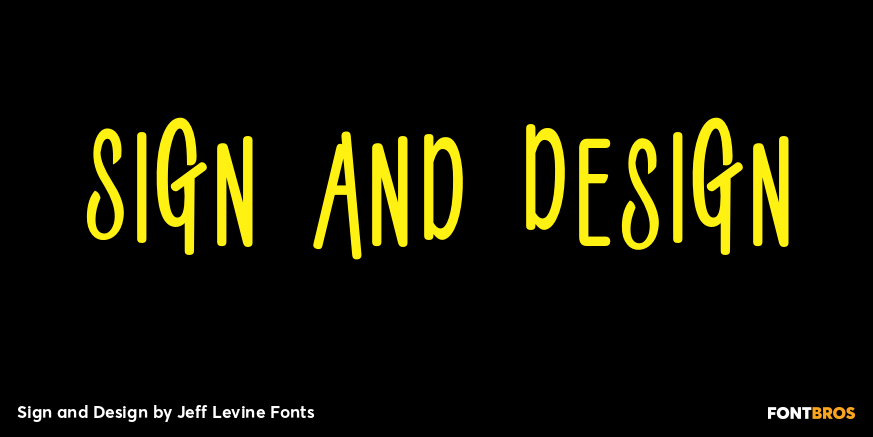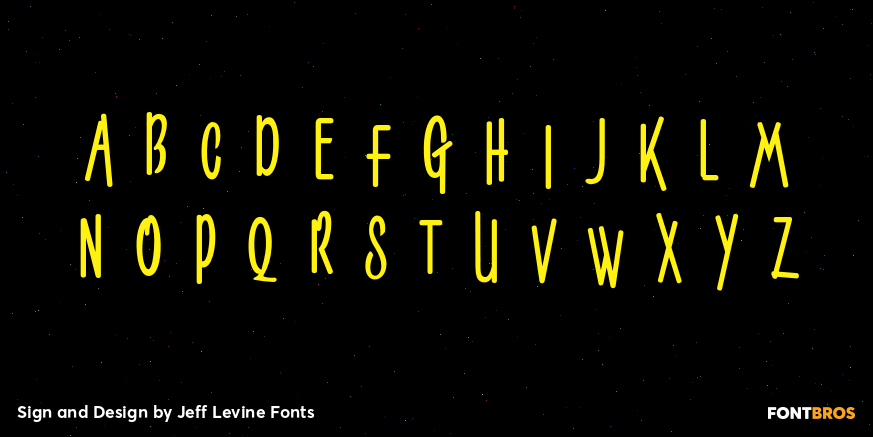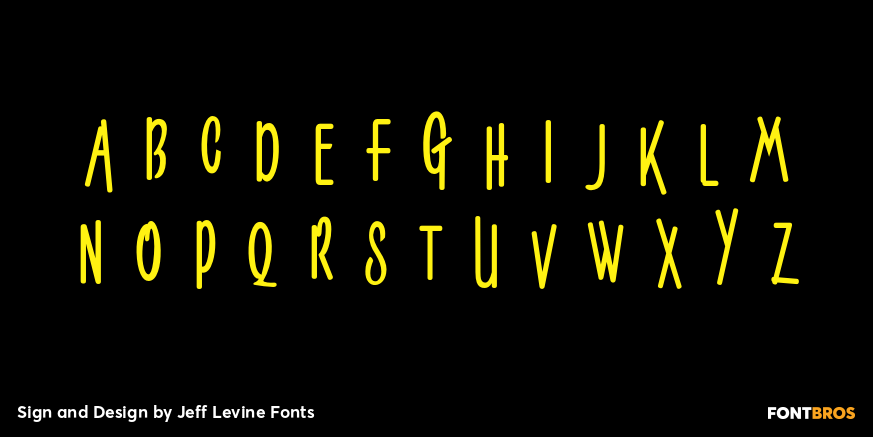
Sign and Design
Sign and Design JNL is a casual brush alphabet modeled after an Alf R. Becker design that appeared in Signs of the Times Magazine. Thanks to Tod Swormstedt of ST Media and the American Sign Museum for providing the reference material to make this font.